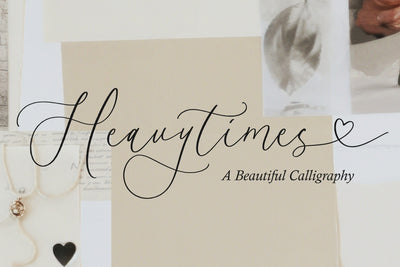
Heavytimes Heart & Tail Font
Heavytimes is a Heart & Tail Beautiful Calligraphy Font
Featuring a stunning handmade style with elegant tails and swashes. The flowing tails and swashes add an extra layer of sophistication and elegance, creating a beautiful and harmonious composition.
Font Features :
- Lowercase ending swash
- Connecting heart